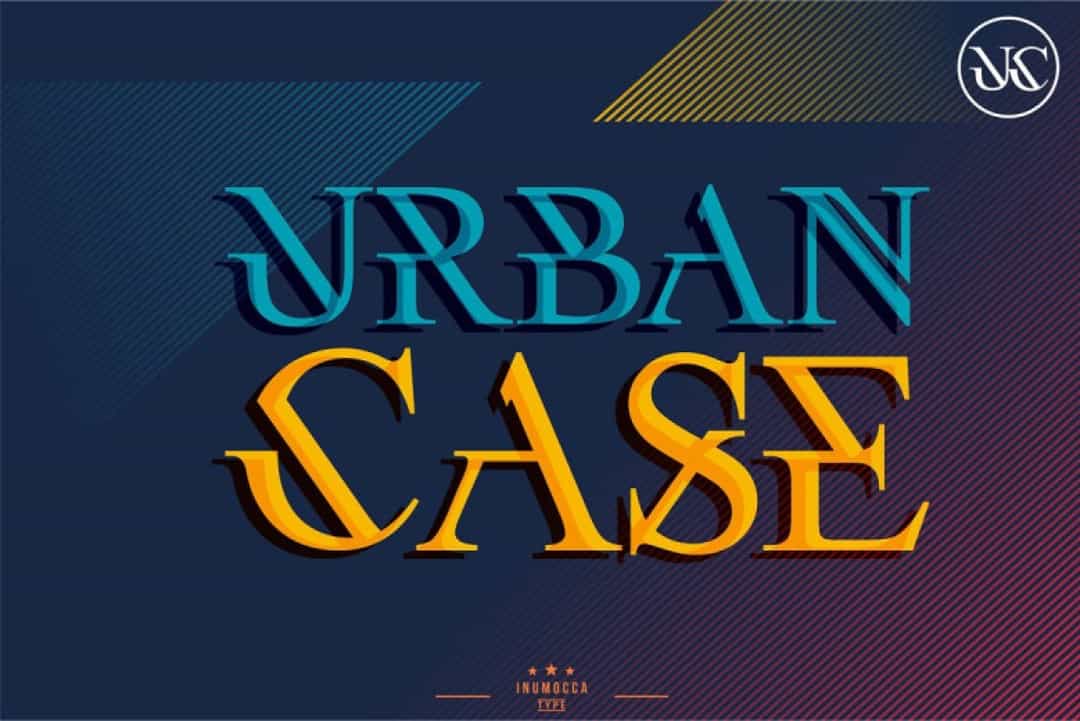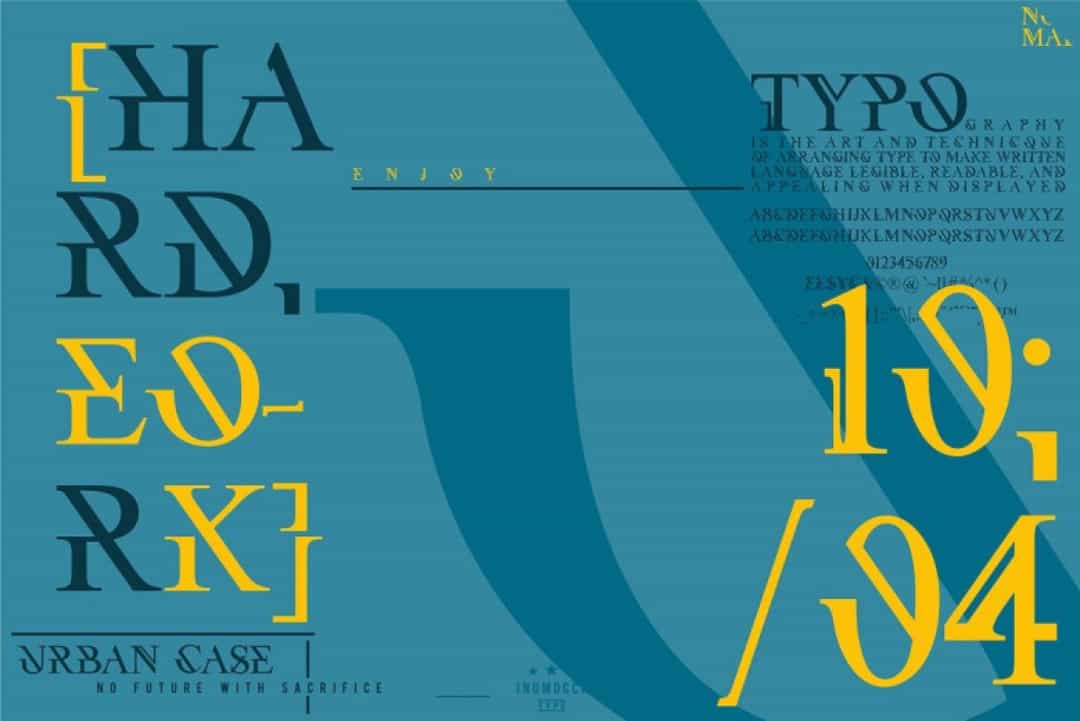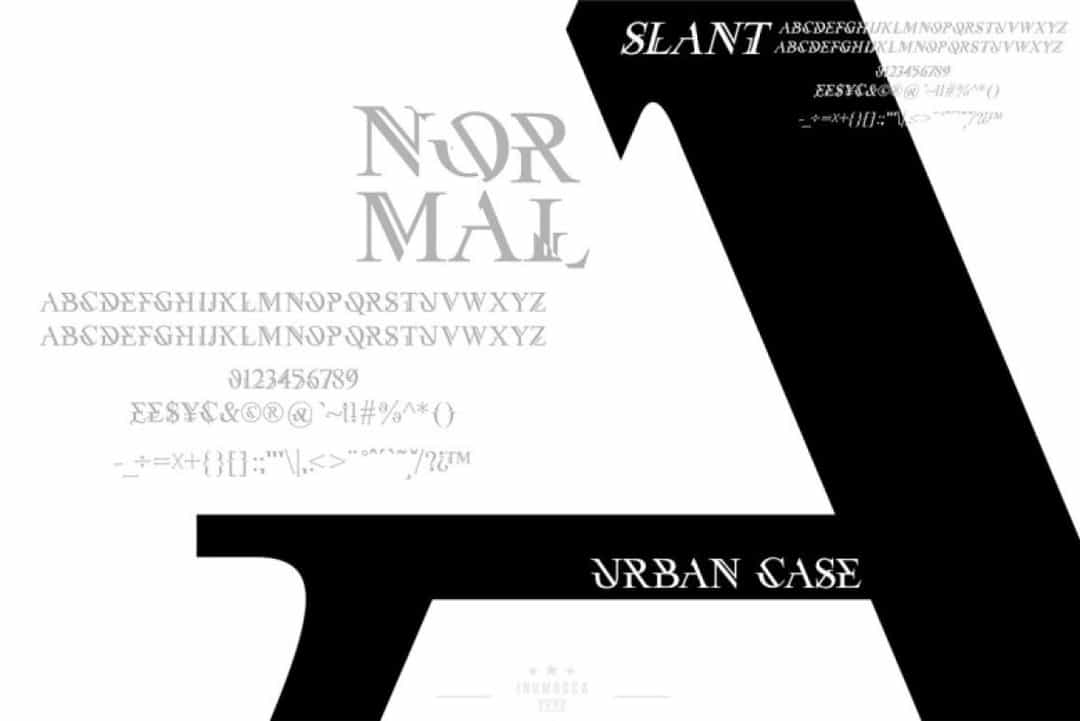
Urban Case is a modern serif font that bring you clean and sharp feels. It’s designed and shared by inumocca_type. UrbanCase inspiration from the Urban People, Simple, Elegant, Classy, have a great different Style. great for your Logos, signature, promotion media, etc. unique glyph and deep touch.